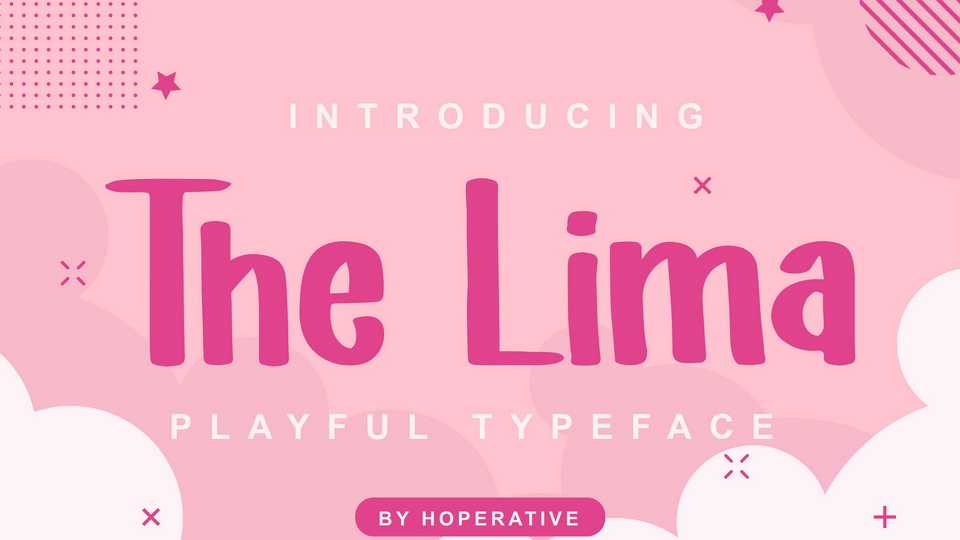
Download The Lima font, a super fun and playful hand lettered typeface. The Lima is perfect for headings, flyer, greeting cards, product packaging, book cover, printed quotes, logotype, apparel design, album covers, etc.
Designer: Hoperative std